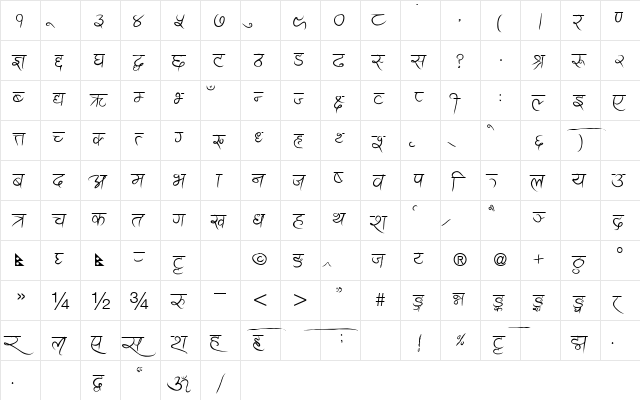
Ananda Akchyar Regular
| Foundry | Ananda K. Maharjan |
| Designer | Ananda K. Maharjan |
Design Context for Ananda Akchyar Typeface
Ananda Akchyar offers clean, dependable letterforms without strong stylistic allegiance, making it a practical choice for designers who need flexibility.